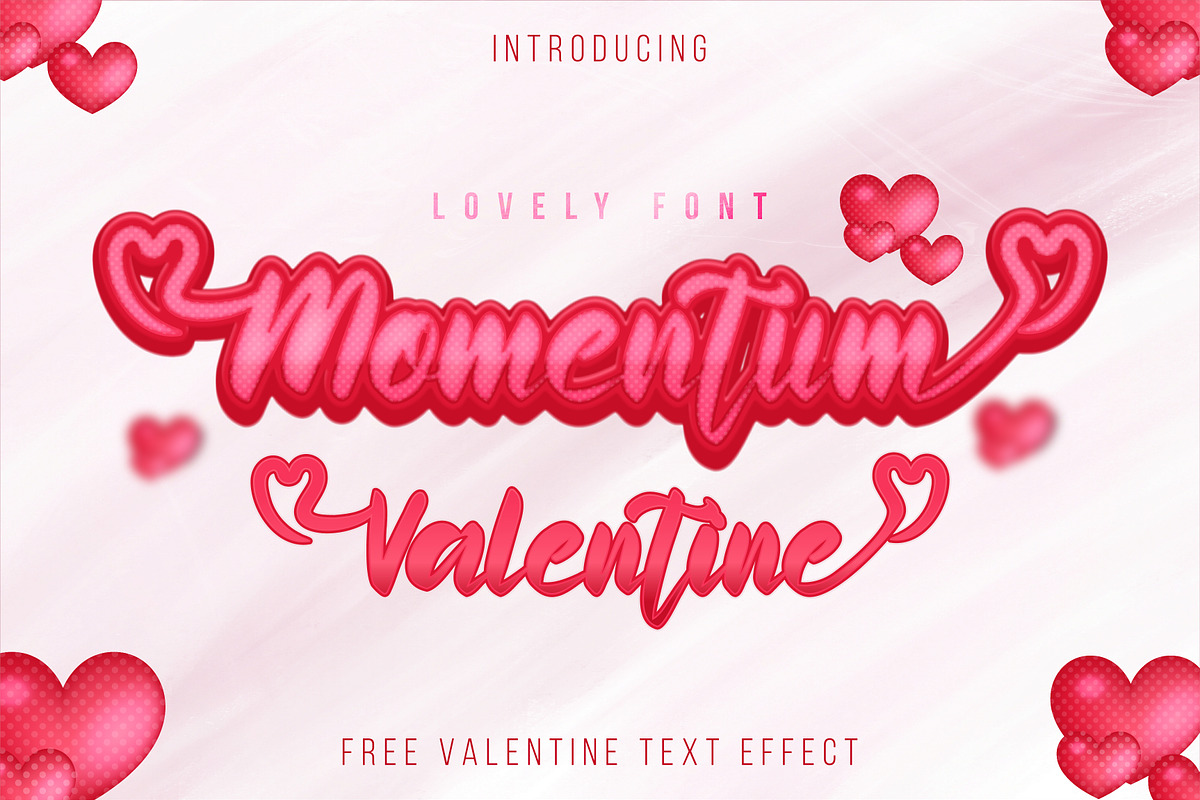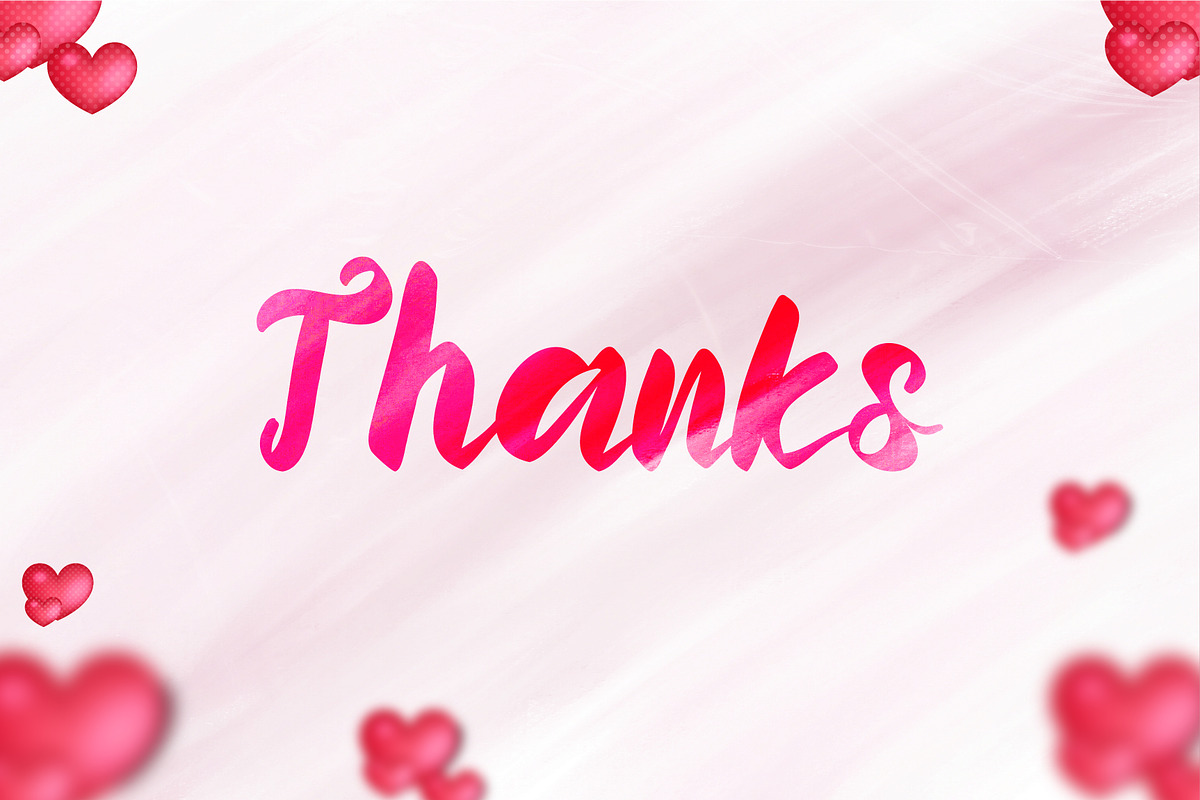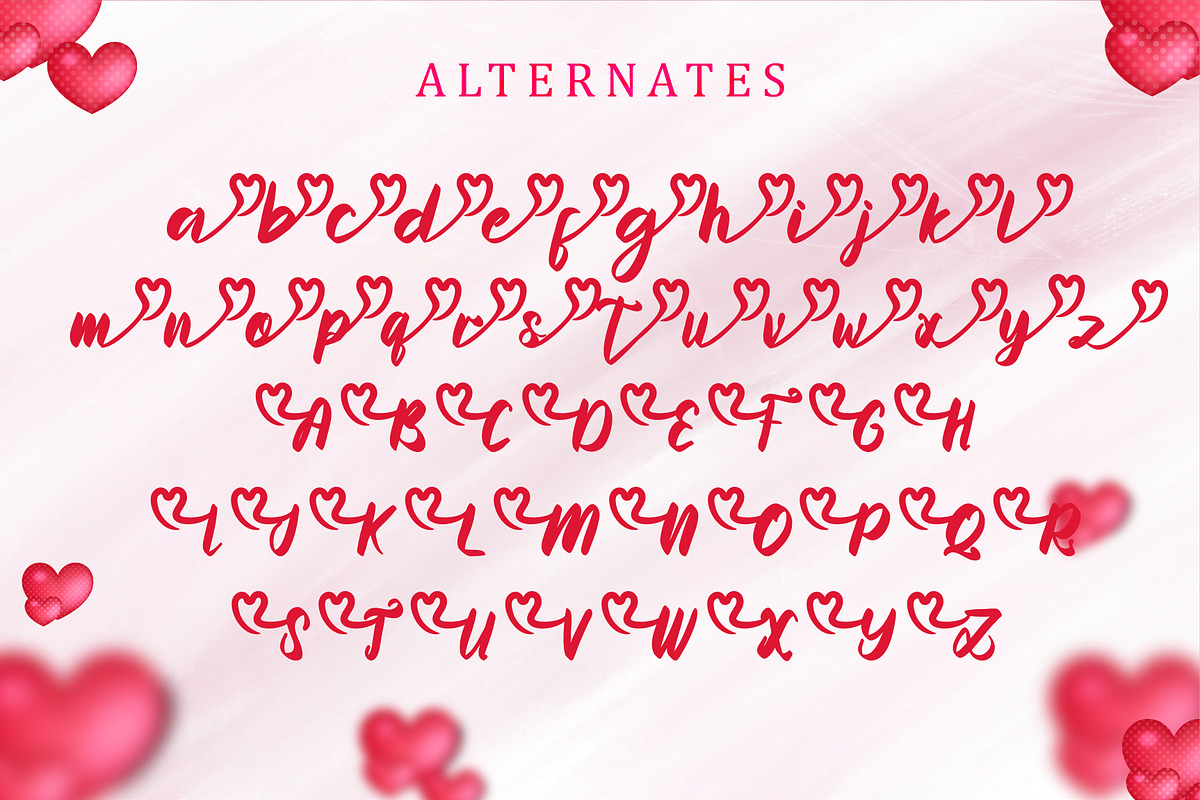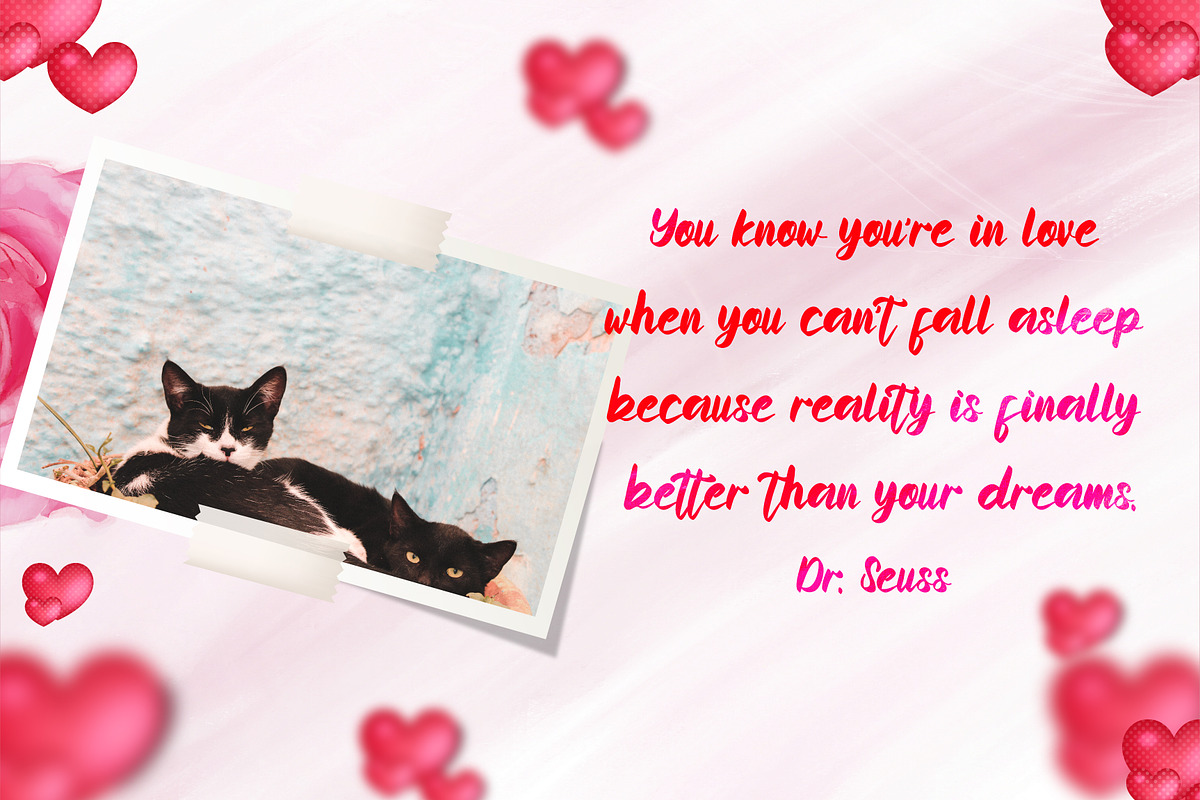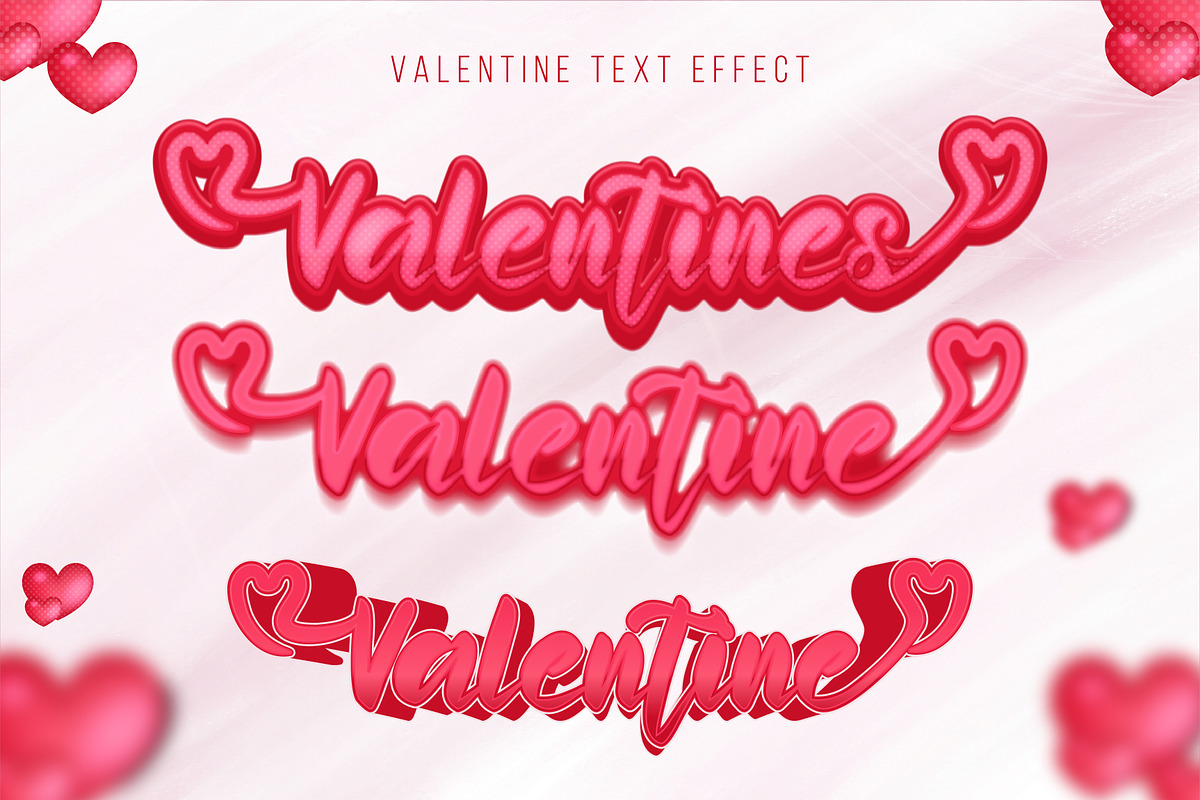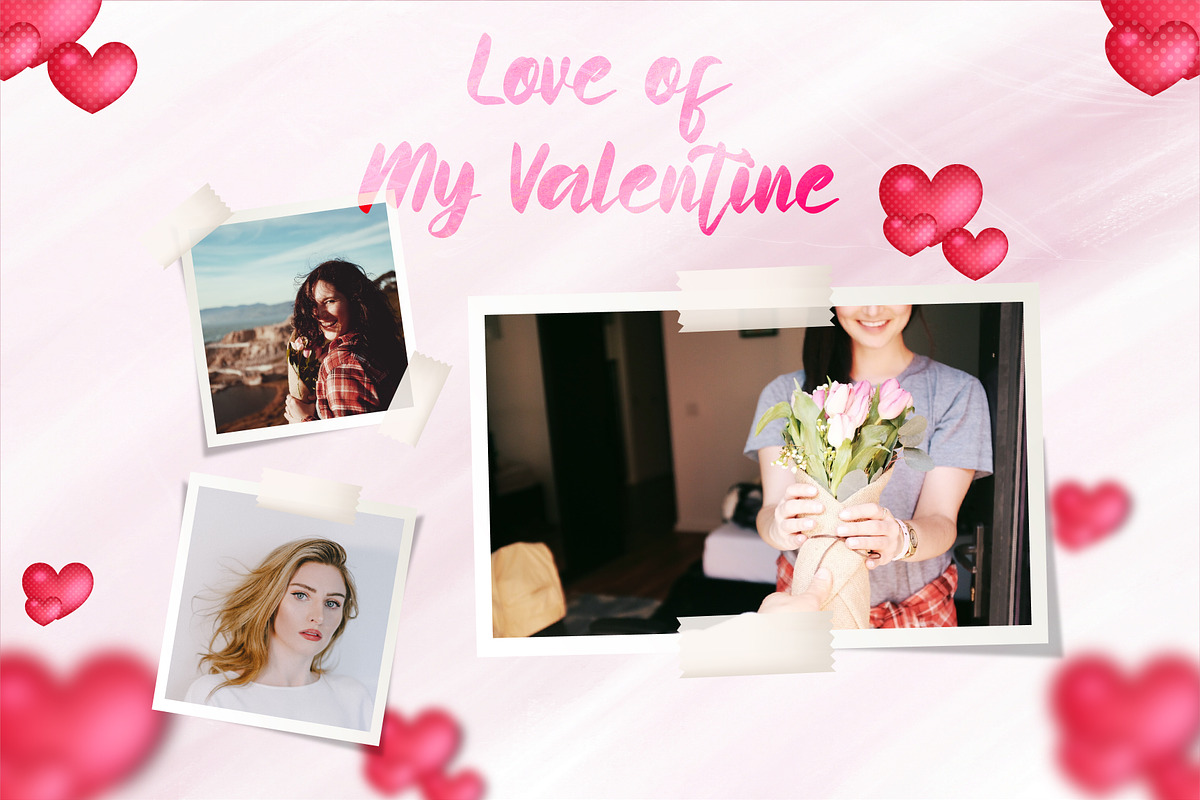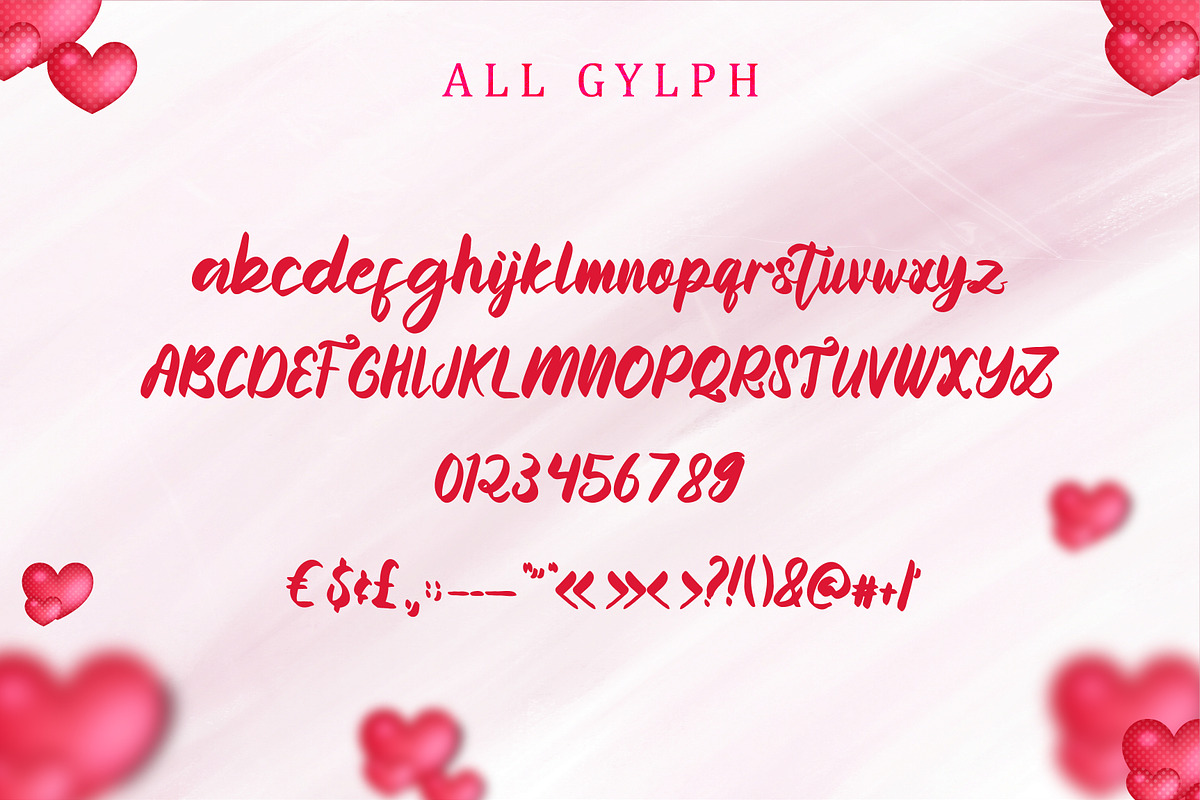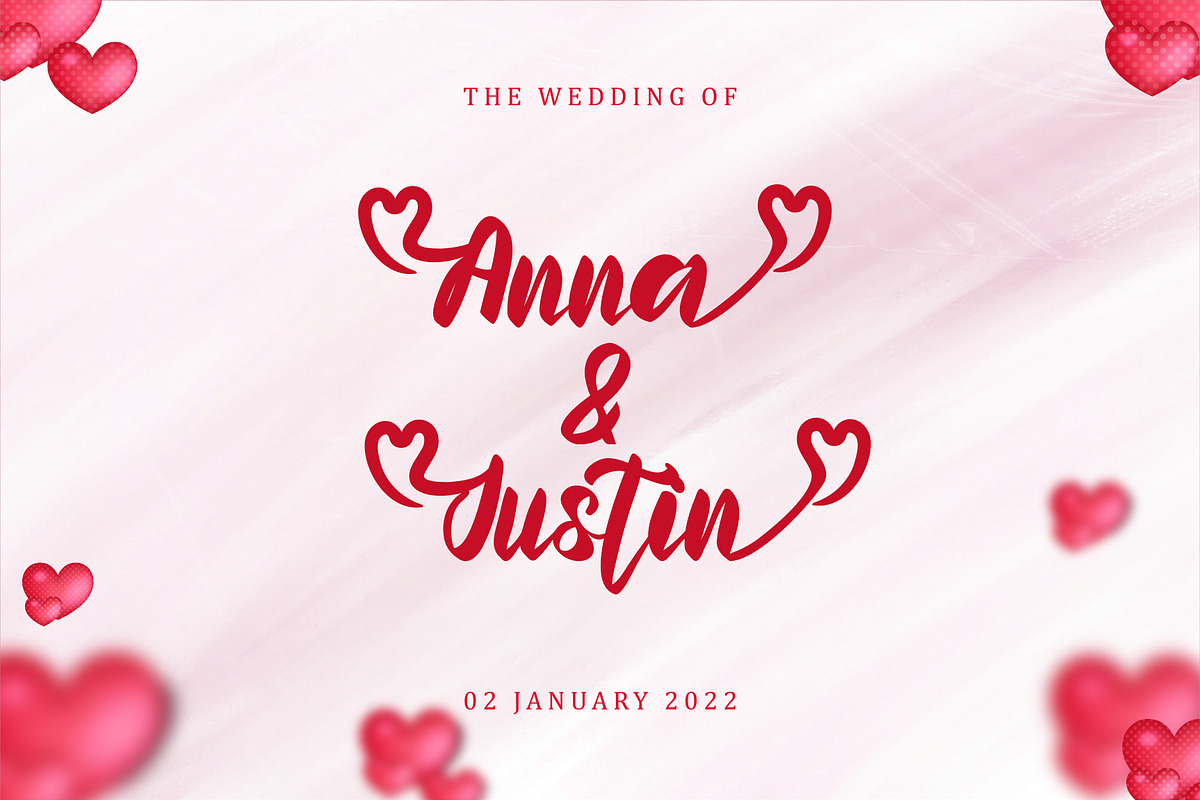
Momentum Valentine
Momentum Valentine is a sweet handwritten font. It maintains its classy calligraphic influences while feeling contemporary and fresh. Fall in love with it and bring your projects to the highest levels! This font is PUA encoded which means you can access all of the glyphs and swashes with ease!